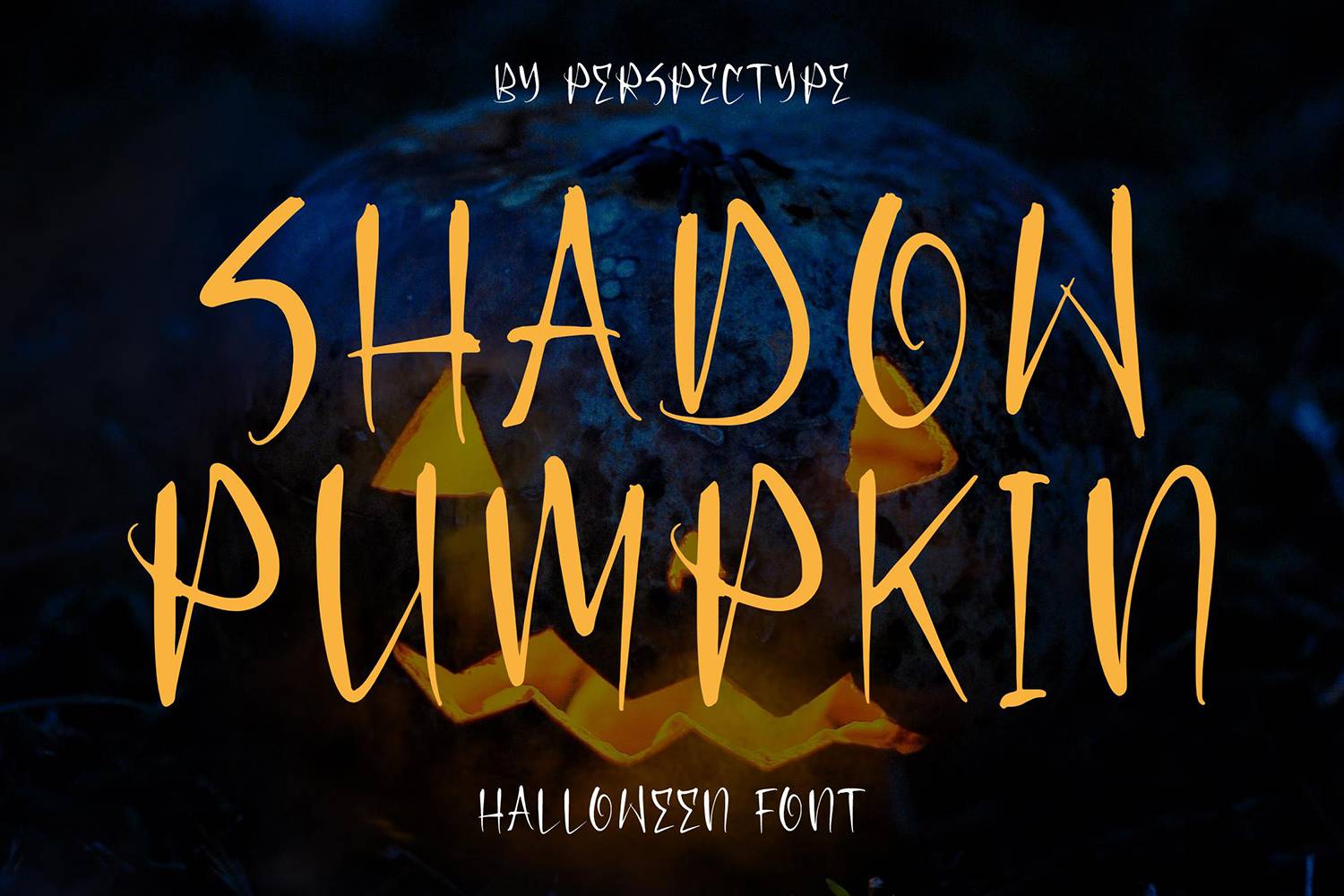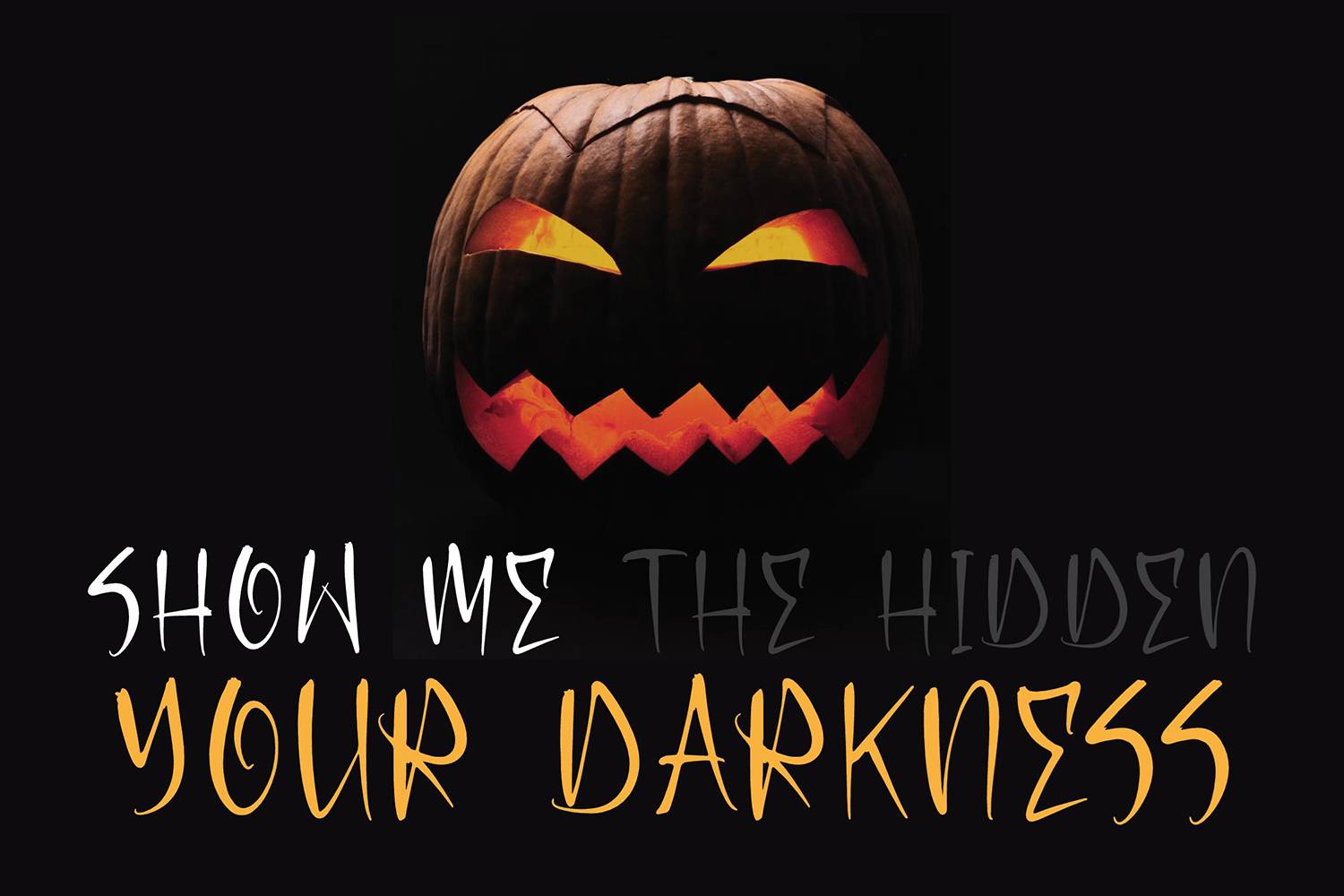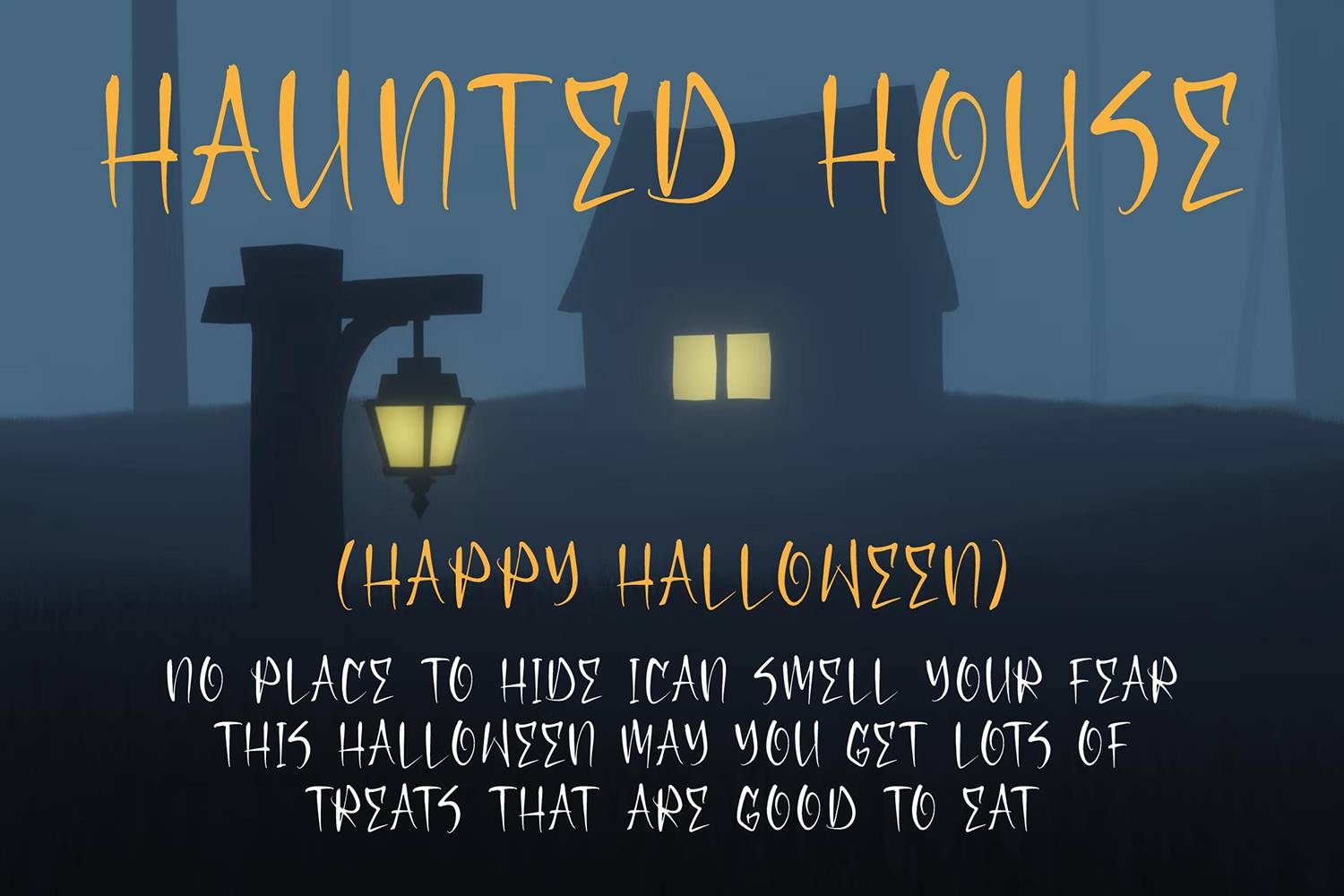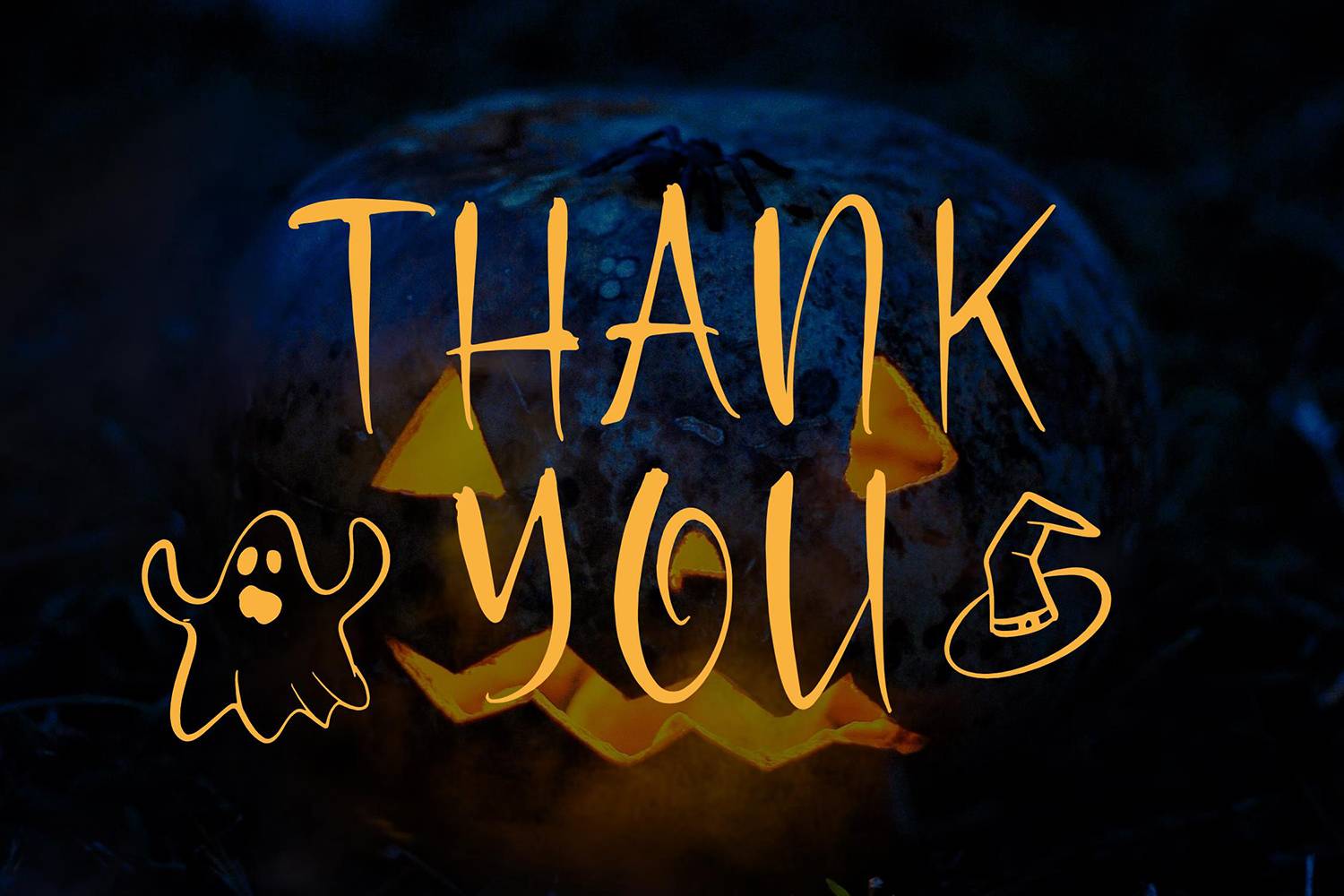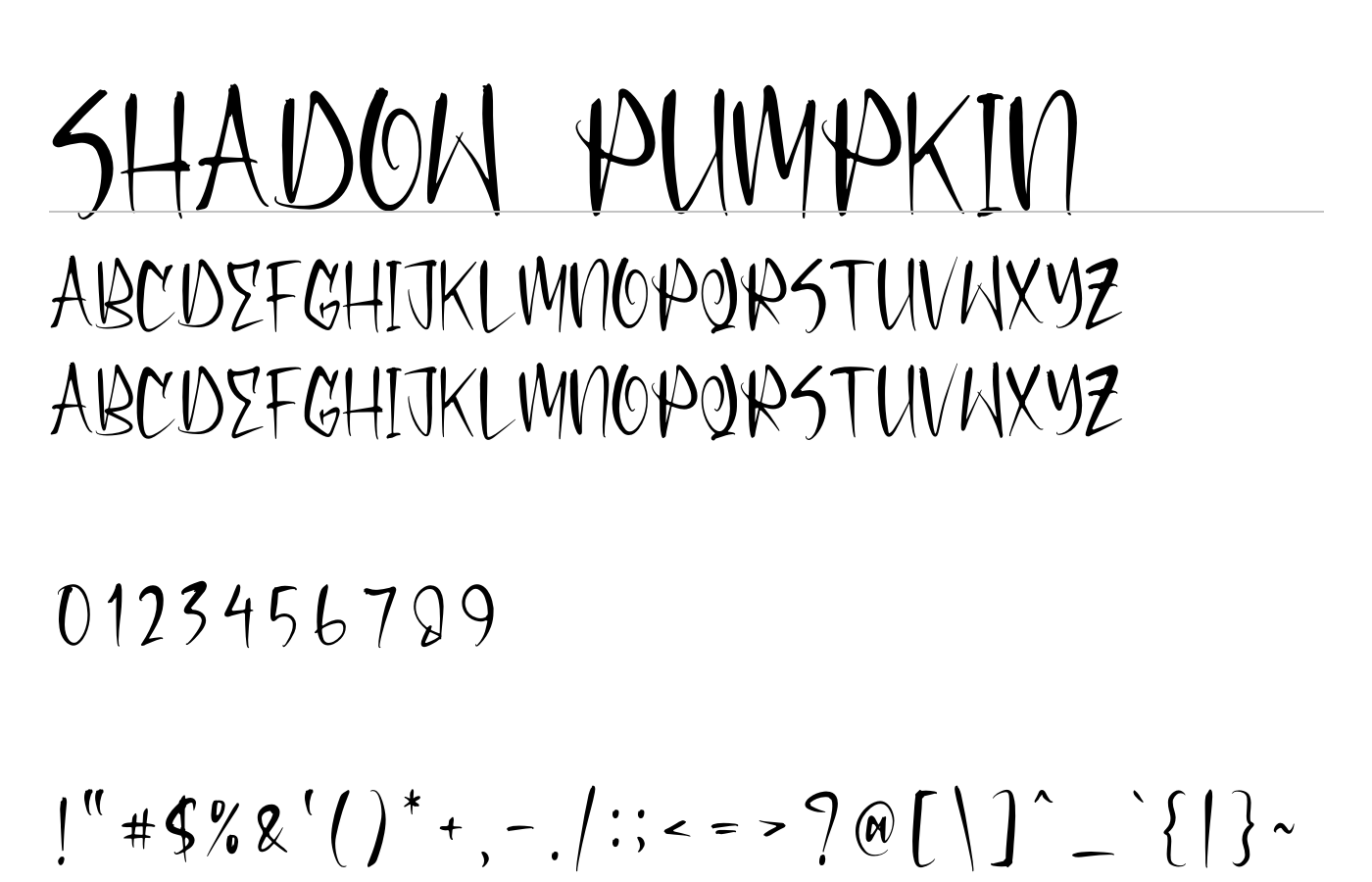
Shadow Pumpkin is a playful and quirky handwritten font featuring tall, narrow letters with irregular strokes and whimsical flourishes. Its casual, slightly spooky vibe makes it perfect for Halloween-themed designs, party invitations, and fun, informal branding where a unique and creative touch is desired.
Shadow Pumpkin Font
About Shadow Pumpkin Font